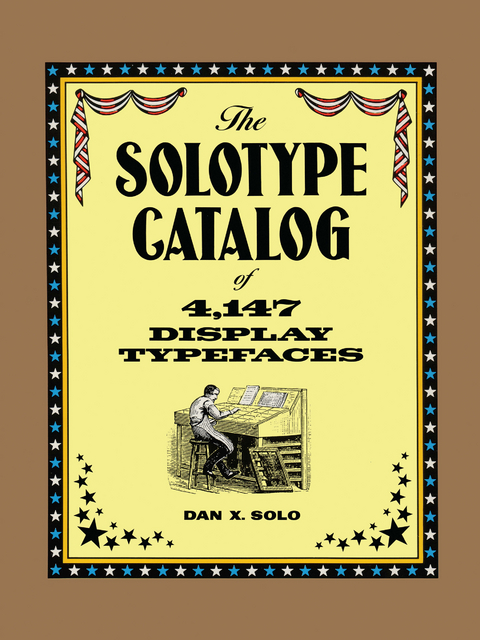
The Solotype Catalog of 4,147 Display Typefaces (eBook)
The author of many books on typography, Dan X. Solo was also the proprietor of his own typography shop in Oakland, California — an establishment dedicated to unusual typography and special effects. This comprehensive catalog offers graphic designers a dazzling selection of over 4,000 typefaces and optical effects available from Solotype Typographers.Here, in Solo's words, is "e;a great cast of characters"e; — the alphabet — abetted by a cornucopia of typographical ideas and an endless resource of letters, words, phrases, slogans, logos, humorous comments, headlines, and graphic symbols. Individual sections of the book display a rich variety of typefaces in categories such as Condensed, Victorian, Art Nouveau, Art Deco, Rustic, Thick-and-tin, Calligraphic, Uncials, Latins, and Blackletter.Samples are imaginatively presented. "e;Stagecoach,"e; for example, is printed in Fargo typeface, evoking dusty trails, rawhide, and ten-gallon hats, while "e;Sizzling summer savings"e; appears appropriately in the flamboyant Firebug typeface. All typefaces are indexed for quick and easy reference. As entertaining as it is practical and useful, this impressive treasury of versatile typefaces and optical effects will be indispensable to busy commercial artists as an inexhaustible source of typographic ideas and a "e;swipe file"e; of words, phrases, and letters for use in graphic art projects.